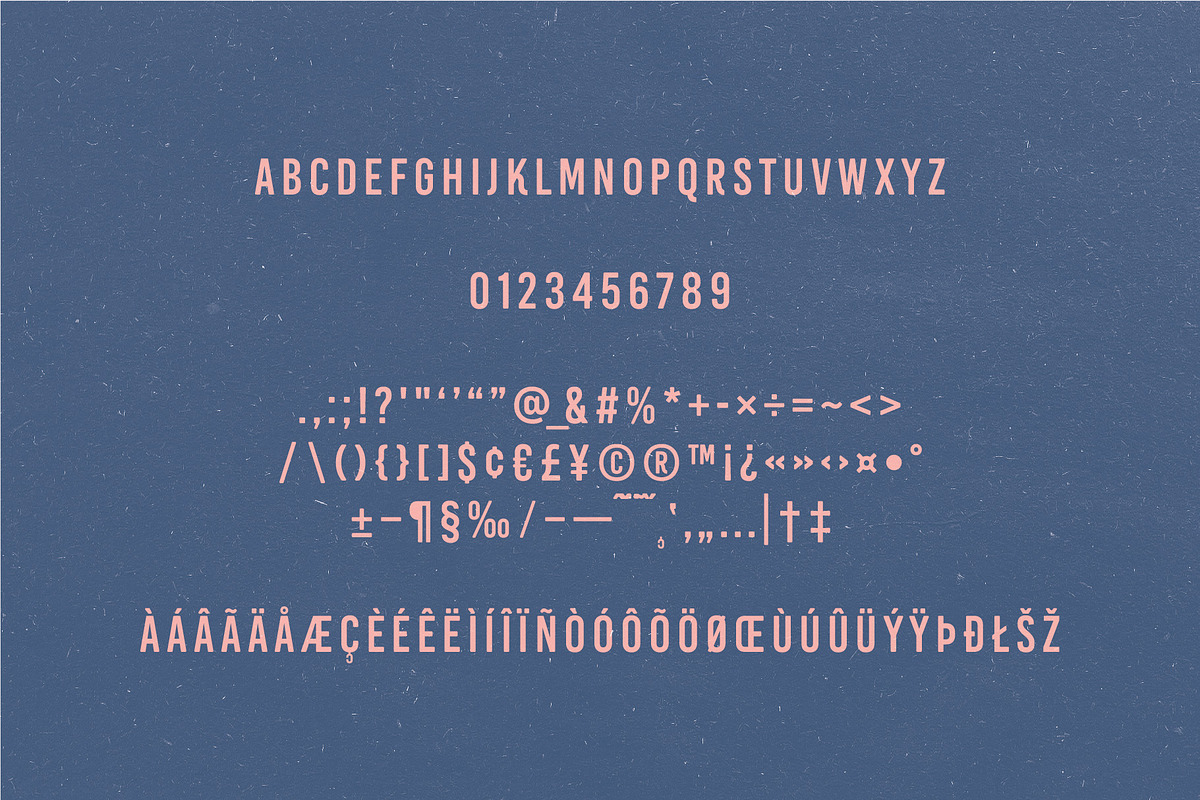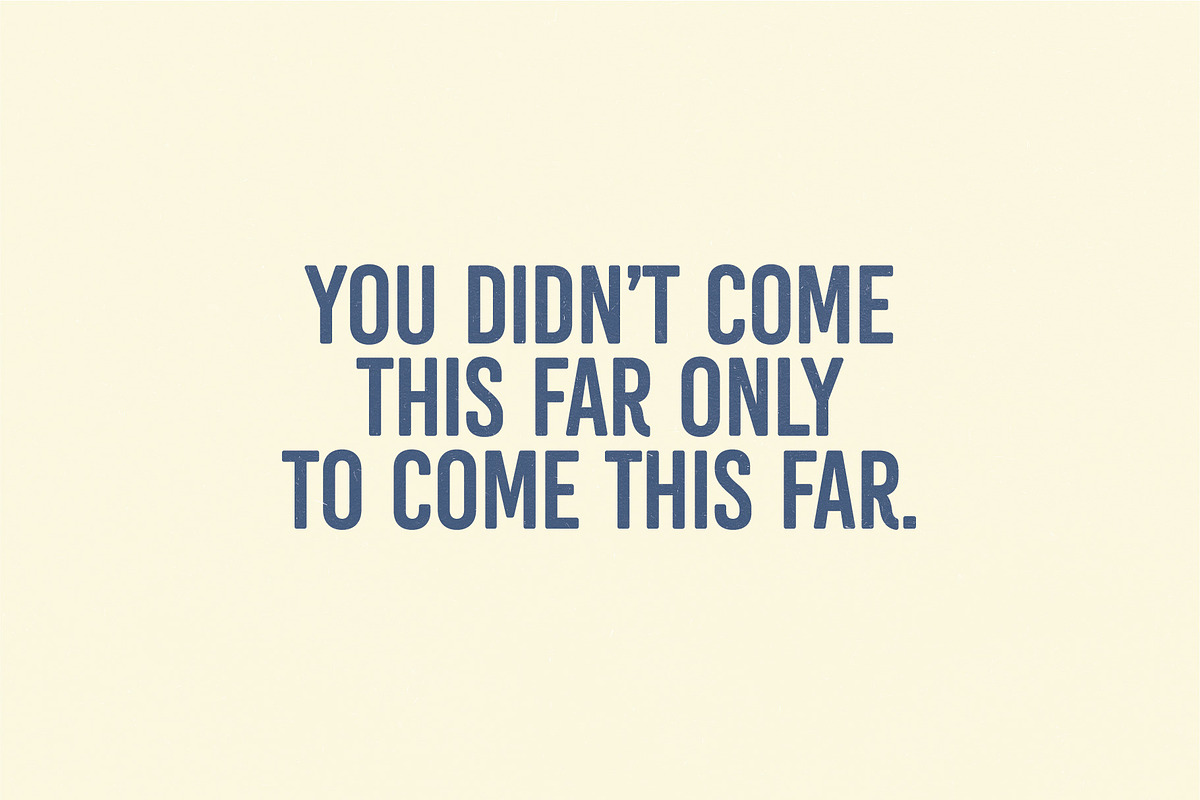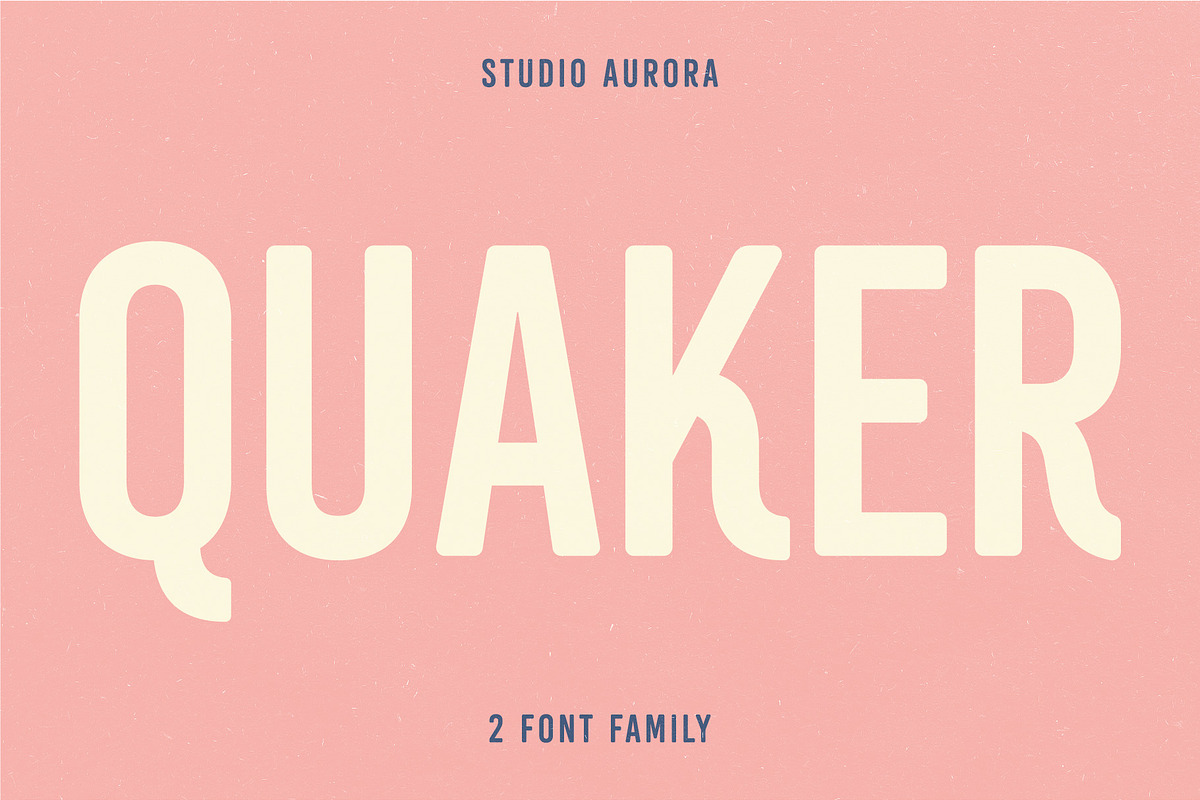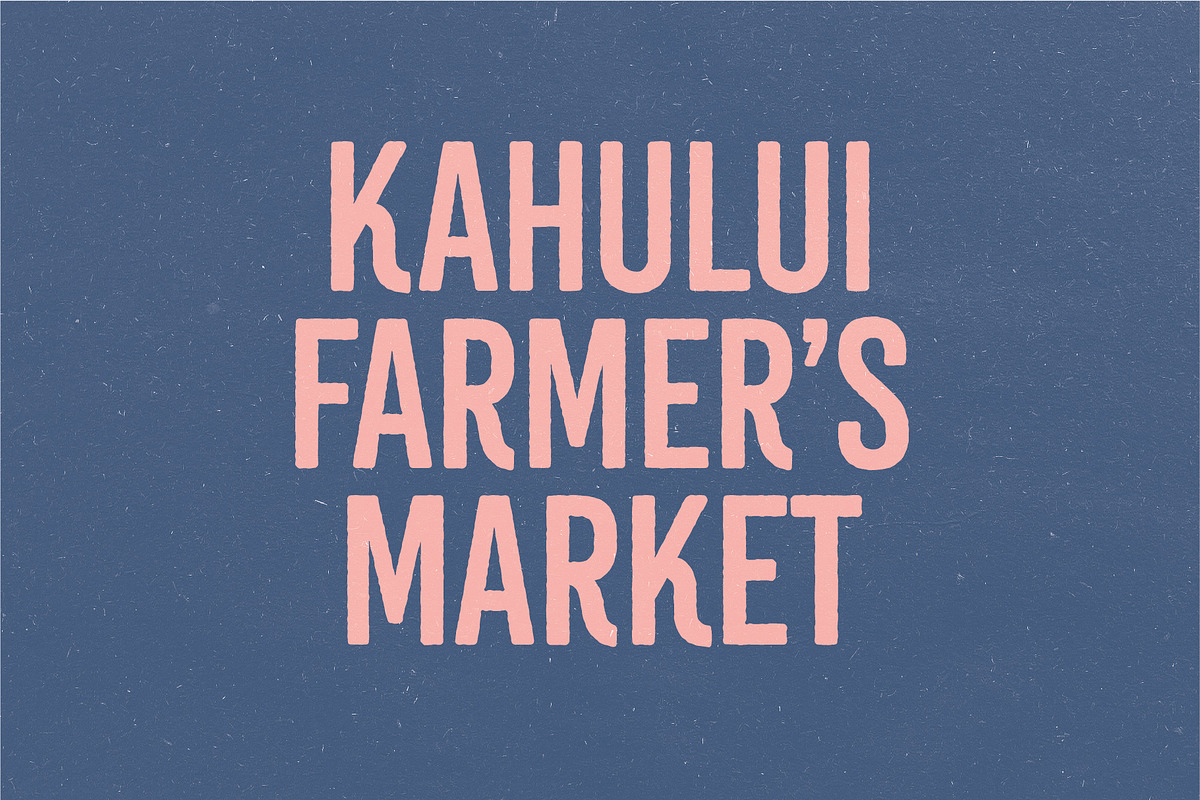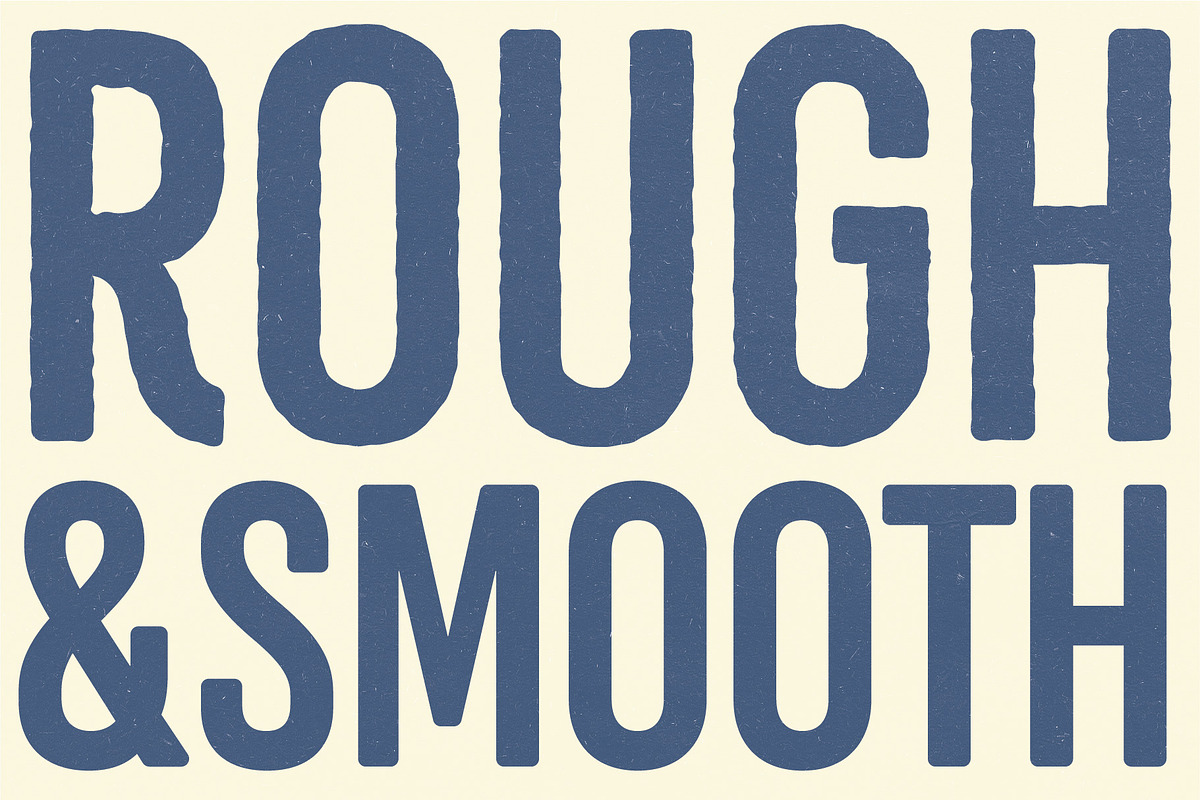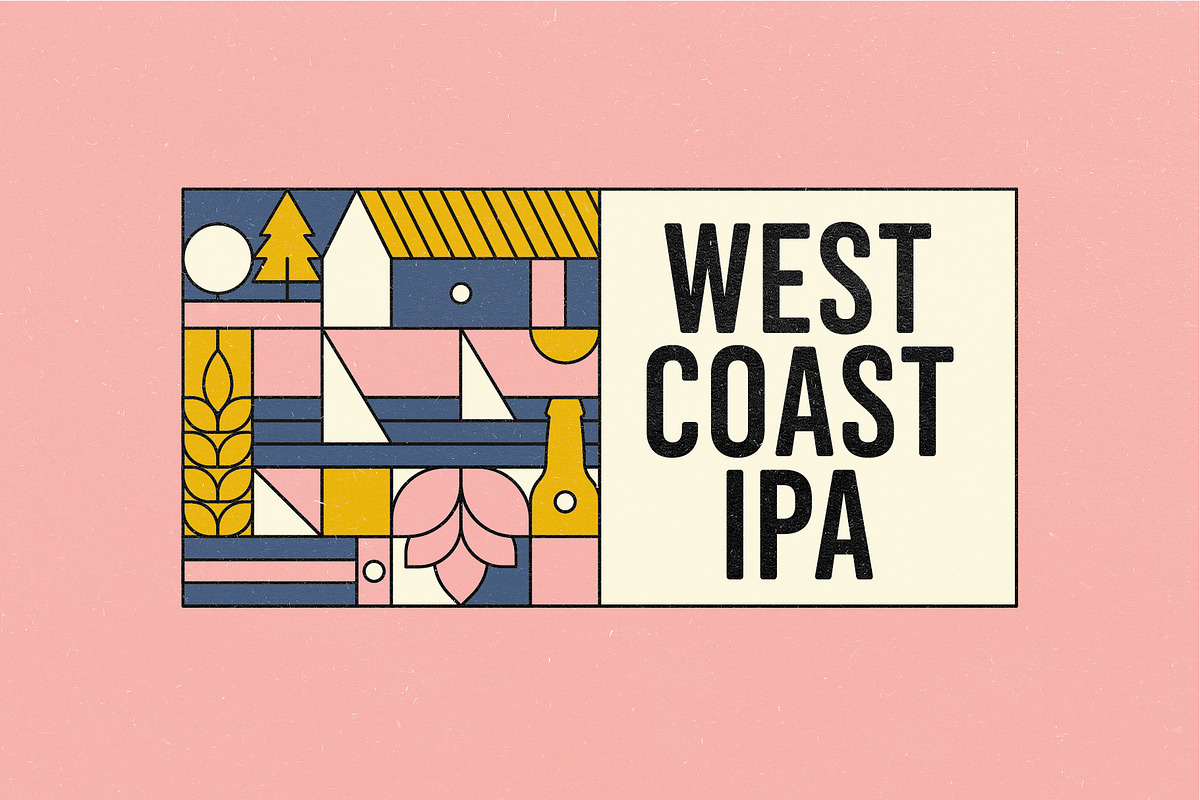
Quaker - Sans-Serif Americana Font
This is a sans serif font that we recommend using in the following types of work; magazines (titles and layouts), logos and branding, invitations, quotes, blog headers, posters, advertising and body copy.
Language Support: Afrikaans, Albanian, Catalan, Danish, Dutch, English, French, German, Italian Norwegian, Portuguese, Spanish, Swedish and Zulu.
Uppercase and lowercase glyphs
Two options (Smooth & Rough)
- Introducing our new typeface, Quaker - A vintage, rounded sans serif font that comes with two options; smooth and regular.
- Quaker Regular
- Quaker Rough